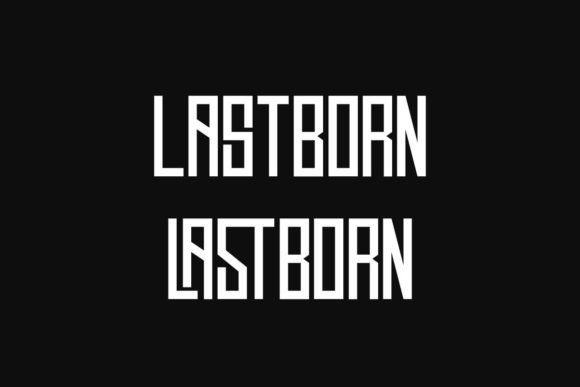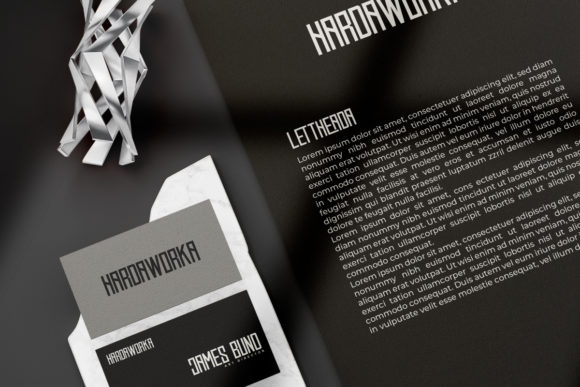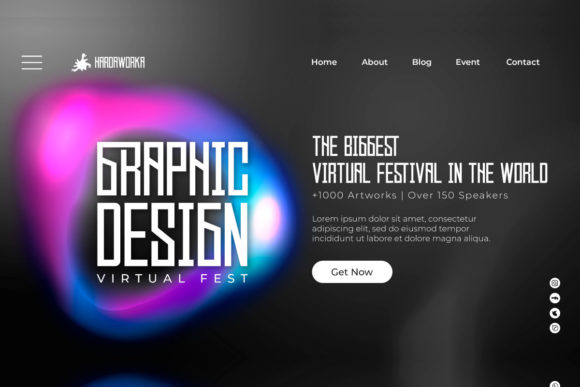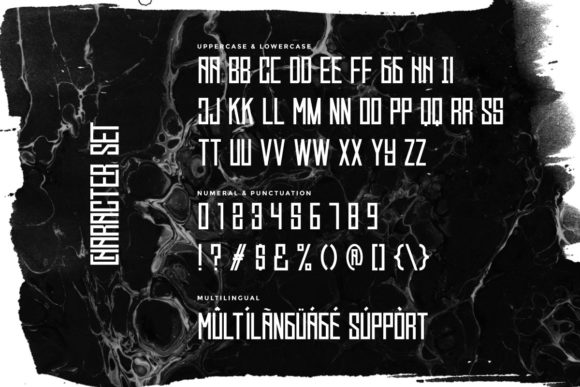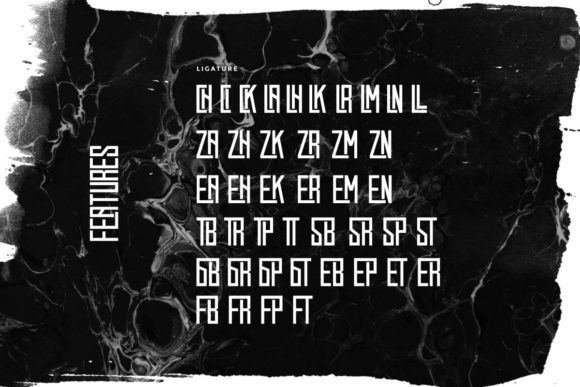
Introduction to Lastborn Font
As a designer, have you ever been on a roll, pouring your heart and soul into a creative project, only to be stumped by the perfect font to bring it all together? I know I have. But what if I told you about a game-changing font that could elevate your work and leave a lasting impression?
Enter the Lastborn Font, a stunning sans-serif font that exudes modernity and mystery. Its strong, modern characters are perfect for branding, logo design, and photography, making it a valuable asset for designers looking to take their work to the next level. With its high-quality design and transparent background, the Lastborn Font is a must-have for any creative project.
And the best part? This design resource is PUA encoded, allowing you to access all of the glyphs and swashes with ease, making it a free download that’s sure to become a trusted companion for your design endeavors.
Lastborn Font
- Unique, hand-drawn style with a transparent background for versatility
- Includes a range of glyphs and characters for comprehensive typography
- Perfect for branding, logos, and other design elements where a custom feel is desired
Honest Review: Lastborn Font
As a designer, I’m always on the lookout for high-quality design resources to elevate my creative projects. Recently, I had the chance to try out the Lastborn Font, and here’s my honest review.
- High-quality typography: The Lastborn Font boasts beautiful, crisp typography that’s perfect for print or digital designs.
- Transparent background: The font’s transparent background makes it easy to use in creative projects with complex backgrounds.
- Limited font family: The Lastborn Font is a single font family, which may not be suitable for projects requiring multiple font styles.
- No bold or italic variants: While the font is beautiful, it’s lacking in bold and italic variants, which can limit its use in certain designs.
Overall, I’m impressed with the Lastborn Font’s quality and versatility. While it may have some limitations, it’s a great addition to any designer’s toolkit, especially for those on a budget. With a little creativity, you can achieve stunning results with this high-quality design resource.
Tips for Getting the Most Out of Lastborn Font
Experiment with different font sizes, colors, and styles to create a unique visual identity for your design project. Consider combining the Lastborn Font with other high-quality fonts for a cohesive look.
The Lastborn Font is suitable for a variety of creative projects, including logos, business cards, brochures, and social media graphics. Its transparent background feature makes it ideal for designing digital products with a clean and minimalist aesthetic.
Whether you’re working on a personal or professional project, Lastborn Font is an essential addition to your design arsenal. Its versatility and high-quality design make it an ideal choice for a wide range of applications, from digital art to print materials. So why wait? Download Lastborn Font today and discover a world of endless creative possibilities. Experience the freedom to design without limits and unlock your full potential with this incredible design resource.